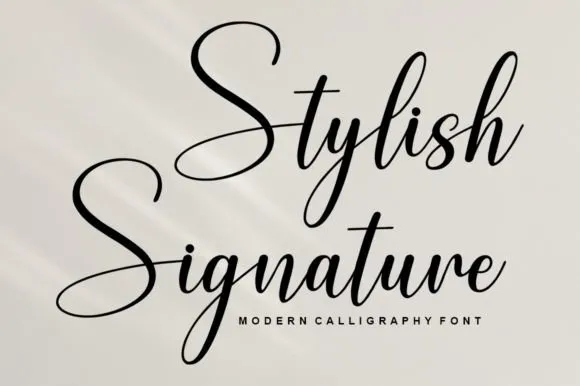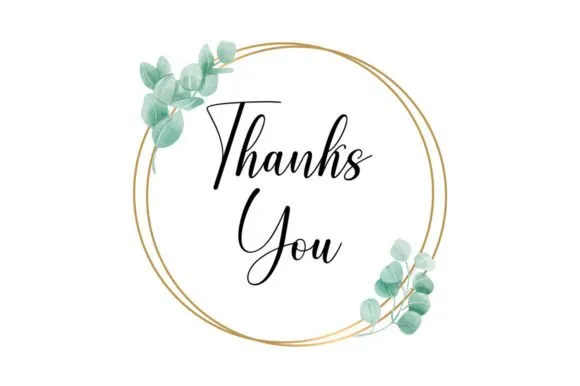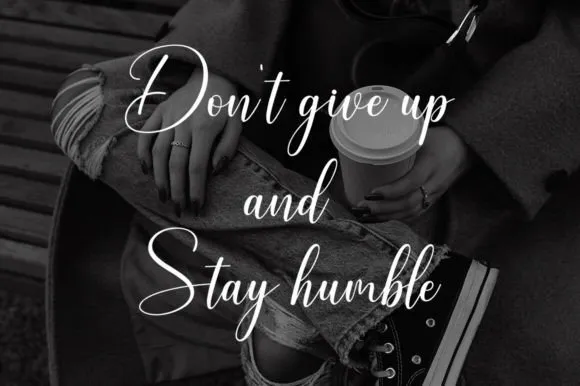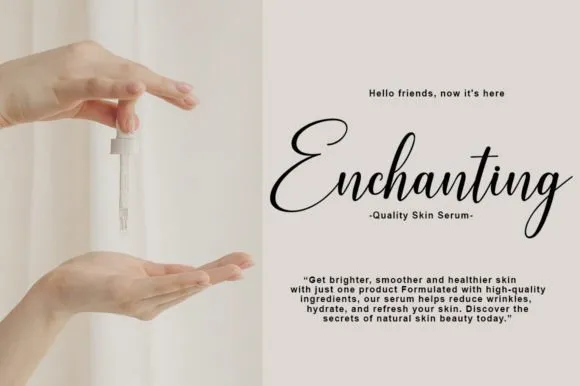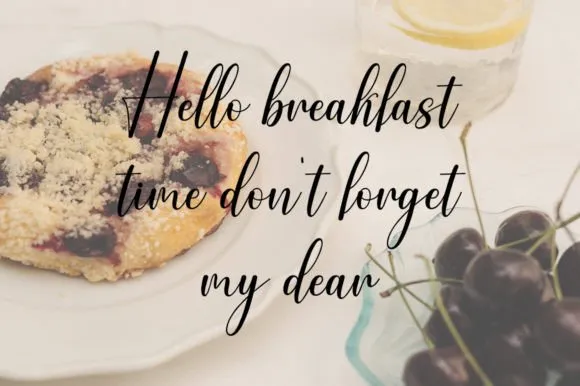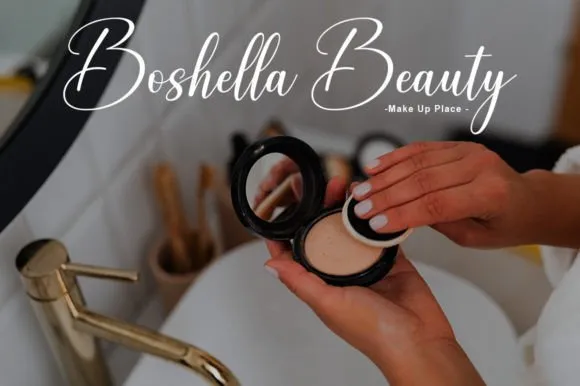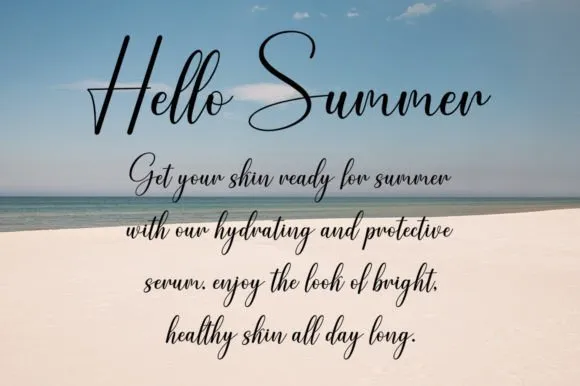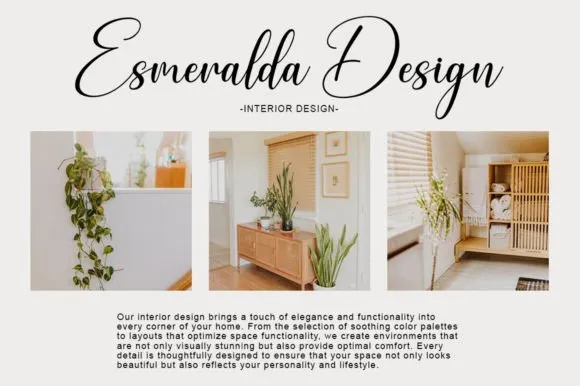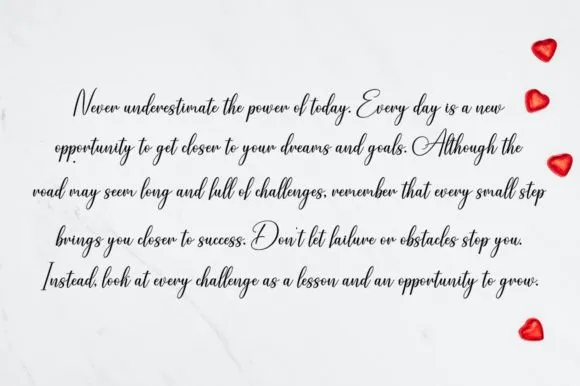
Stylish Signature is an elegant handwritten font that exudes softness and grace. With graceful strokes and a feminine touch, this font captures the essence of a handwritten signature, adding a delicate touch to your projects. Perfect for invitations, greeting cards and personal branding, Stylish Signature brings a timeless charm to your written expression.